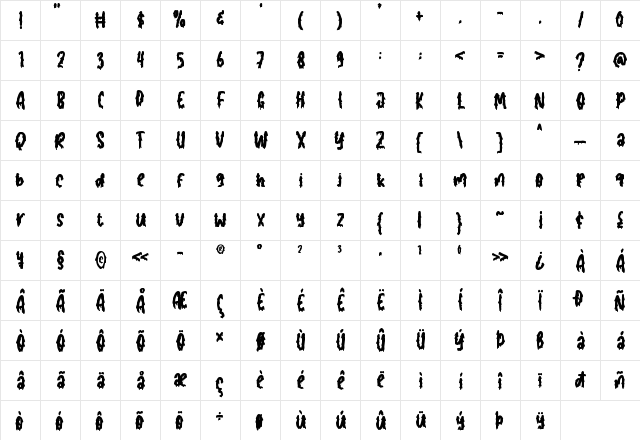
Scary Vampire Regular
Design Context for Scary Vampire Typeface
Scary Vampire leans into the macabre with letterforms designed to disturb and intrigue in equal measure.
Perfect for anything that needs to unsettle — game titles, horror branding, and macabre invitations.
Font Pairing: Pair with a clean neutral sans-serif for body copy to let Scary Vampire's character lead without overwhelming the composition.
Pro Tip: Use Scary Vampire at larger display sizes for maximum impact. Consider generous tracking to let the disturbing character of each letterform breathe.